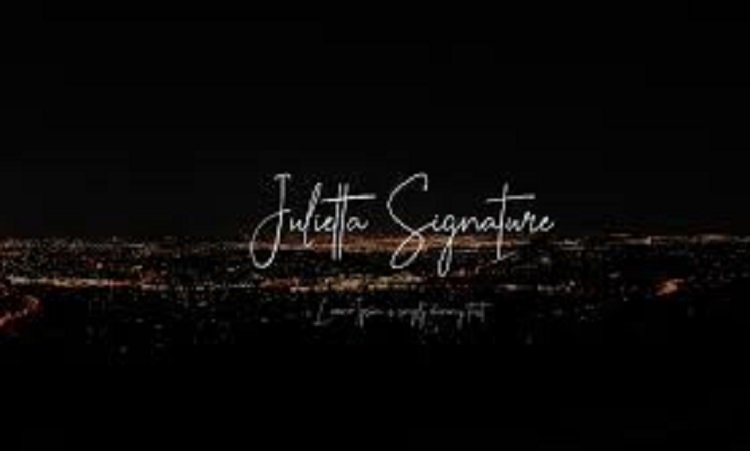
Julietta Signature Font
Hello there, Thank you for downloading Julietta Signature. Julietta Signature is a special font that is perfect for anything that requires a handwritten or signature feel. It will give you a stunning result!